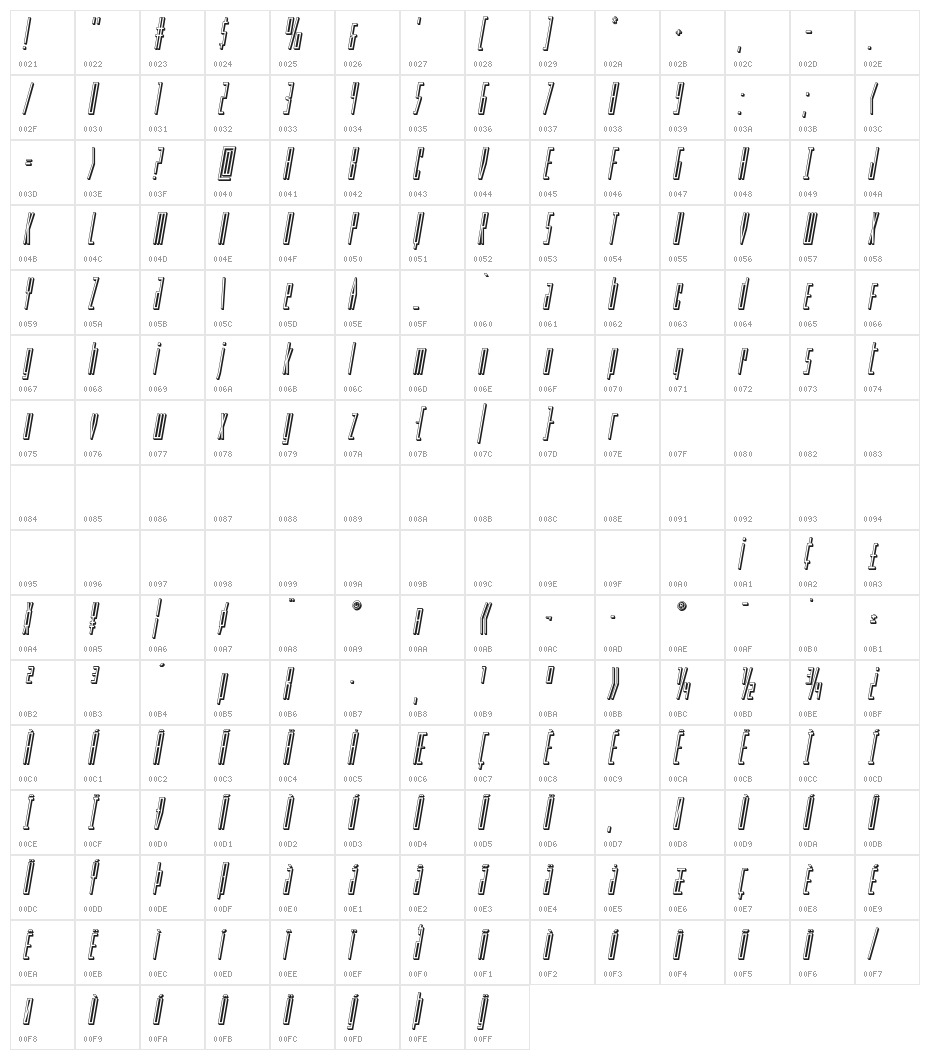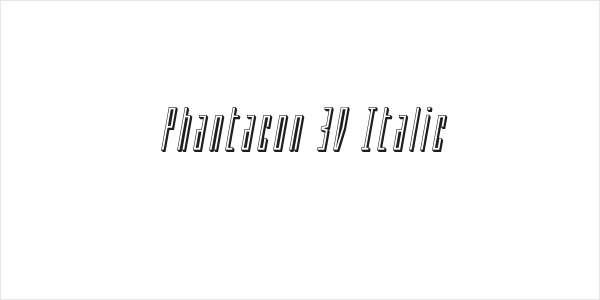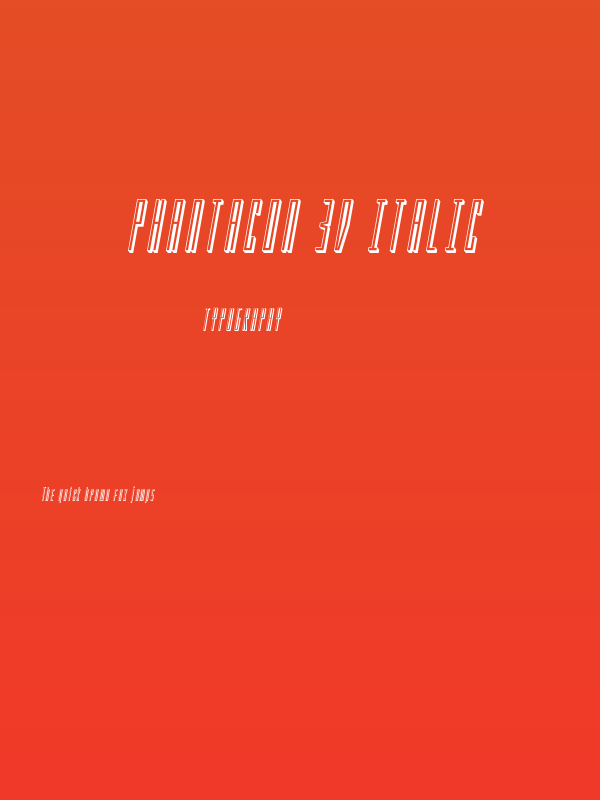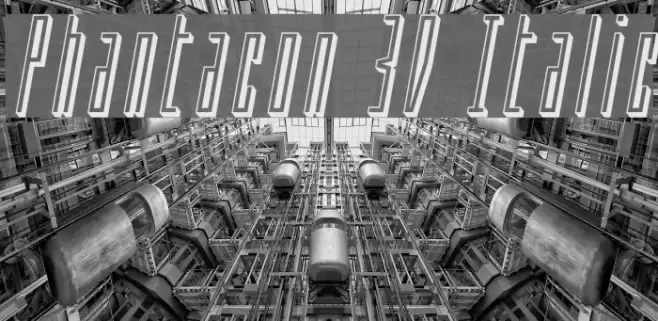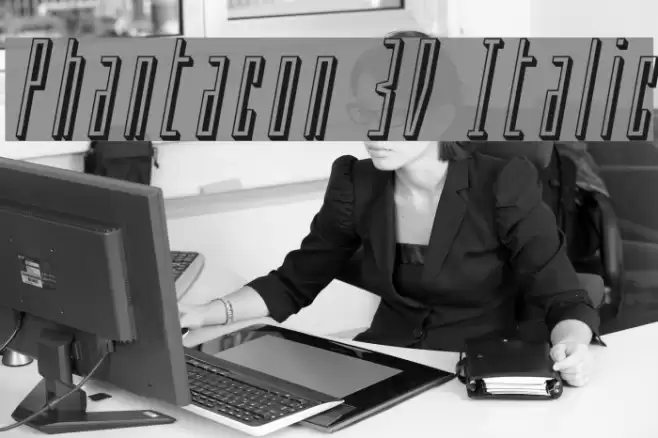
Phantacon 3D Italic Font
Phantacon 3D Italic Description
This font features a striking 3D effect with a strong italic slant, giving it a dynamic and futuristic appearance. The characters are elongated and narrow, with sharp angles and clean lines that create a sense of movement and speed. The 3D shadow effect adds depth, making the letters appear as if they are popping off the page. This style is consistent across uppercase, lowercase, numbers, and special characters, maintaining a cohesive look. The font's unique design makes it stand out, ideal for projects that require a bold and modern aesthetic.
| Proposed Projects | Ideal for sci-fi themed designs, video game titles, futuristic branding, and dynamic posters. |